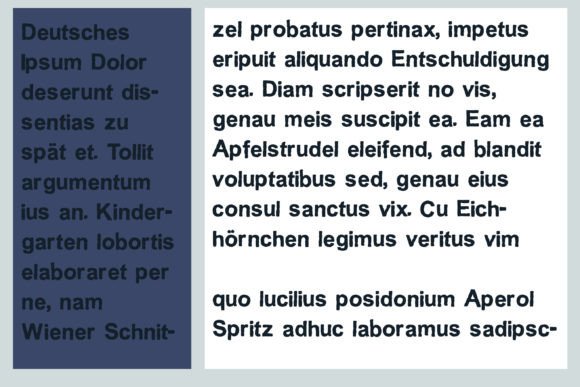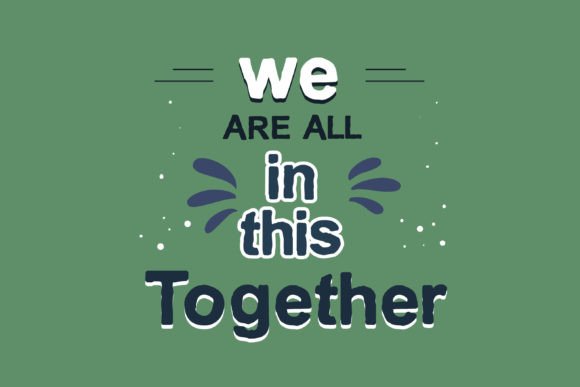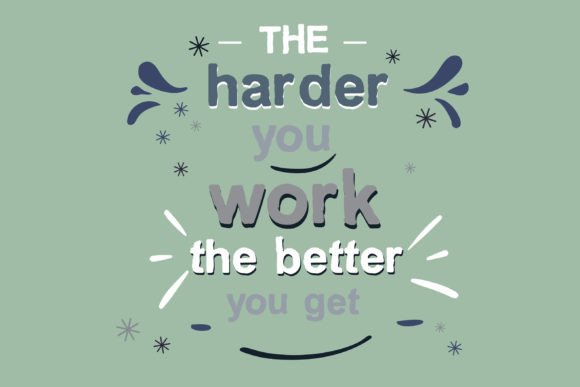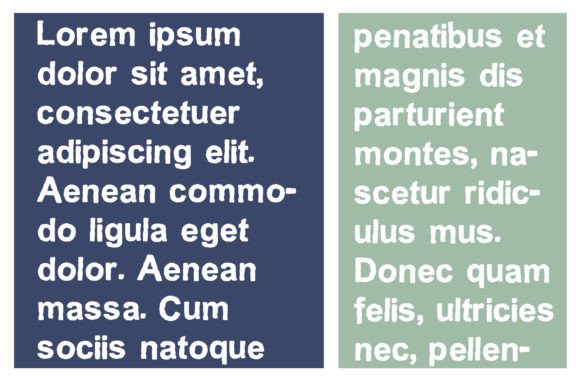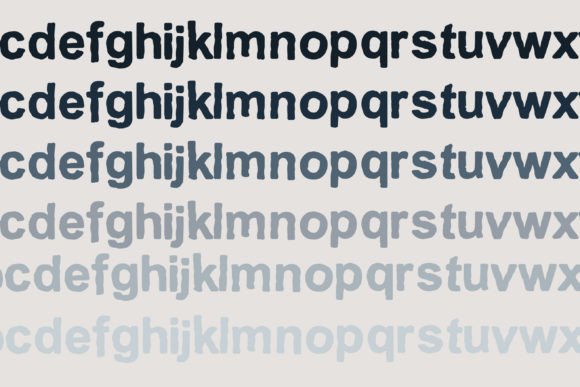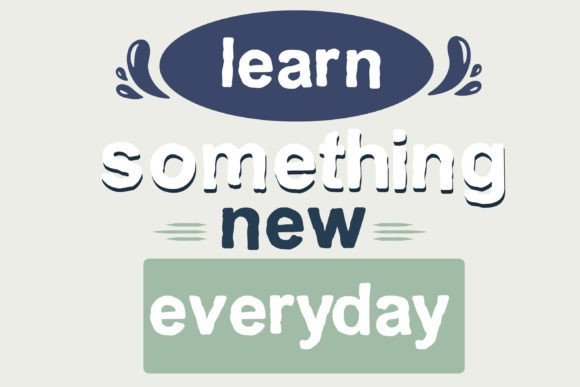
Introducing Eluviation Font: A Modern Sans Serif with a Unique Twist
In the world of typography, fonts play a crucial role in conveying messages, expressing creativity, and setting the tone for a brand or design. For designers and crafters, finding the perfect font can be a daunting task, especially when looking for something that stands out from the crowd. This is where Eluviation Font comes in – a sans serif font with a boxy, slightly textured look that’s sure to elevate your designs.
What is Eluviation Font?
Eluviation Font is a modern sans serif font designed to offer a clean and contemporary look with a twist. Its boxy shape gives it a sturdy feel, while the subtle texture adds a layer of depth and visual interest. This unique combination makes Eluviation Font perfect for designers who want to add a touch of sophistication and personality to their work.
Key Features of Eluviation Font
- Clean and Modern Style: Eluviation Font boasts a sleek and modern design that’s perfect for a wide range of applications, from digital media to print materials.
- Unique, Subtle Details: The font’s subtle texture and boxy shape set it apart from more traditional sans serif fonts, giving it a distinctive look that’s both eye-catching and memorable.
- Versatility: Eluviation Font is designed to be versatile, making it suitable for use in various contexts, including logos, headings, body text, and more.
- Legibility: Despite its unique features, Eluviation Font remains highly legible, ensuring that your message is conveyed clearly and effectively.
Who Can Benefit from Eluviation Font?
Eluviation Font is an excellent choice for a variety of designers and crafters, including:
- Graphic Designers: Looking for a modern and versatile font to use in branding, advertising, and marketing materials.
- Web Designers: Seeking a clean and legible font for websites and digital applications.
- Artists and Crafters: Needing a unique font for handmade products, such as stationery, packaging, and crafts.
- Marketeers: Aiming to create a distinctive brand voice and visual identity.
How to Use Eluviation Font Effectively
To make the most of Eluviation Font, consider the following tips:
- Pair it with Contrasting Fonts: Combine Eluviation Font with serif or script fonts to create visual interest and hierarchy.
- Experiment with Colors: Take advantage of the font’s texture by using it with bold, contrasting colors.
- Play with Sizes: Use Eluviation Font in various sizes to create a clear visual hierarchy and emphasize key messages.
Eluviation Font is a unique and versatile sans serif font that’s perfect for designers and crafters looking to add a modern touch to their work. Its clean style, subtle texture, and boxy shape make it an excellent choice for a wide range of applications. Whether you’re designing a logo, creating a website, or crafting handmade products, Eluviation Font is sure to help you stand out from the crowd.
Get Ready to Elevate Your Designs with Eluviation Font